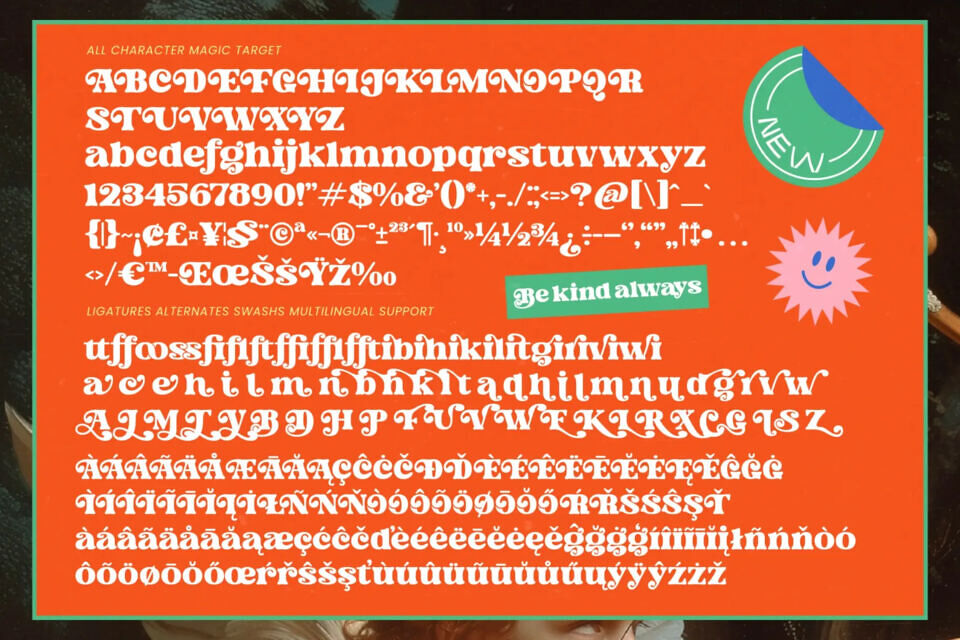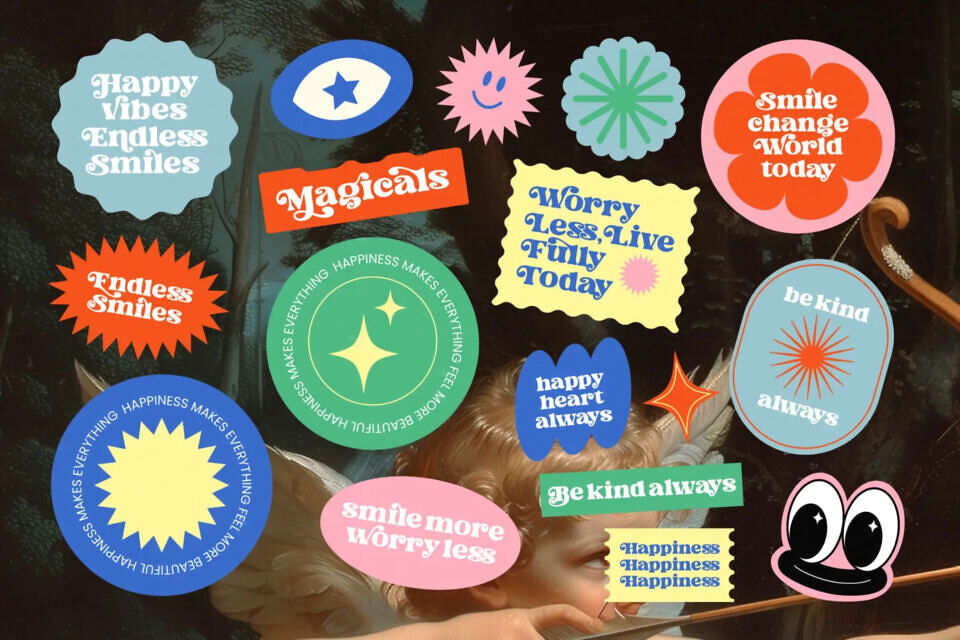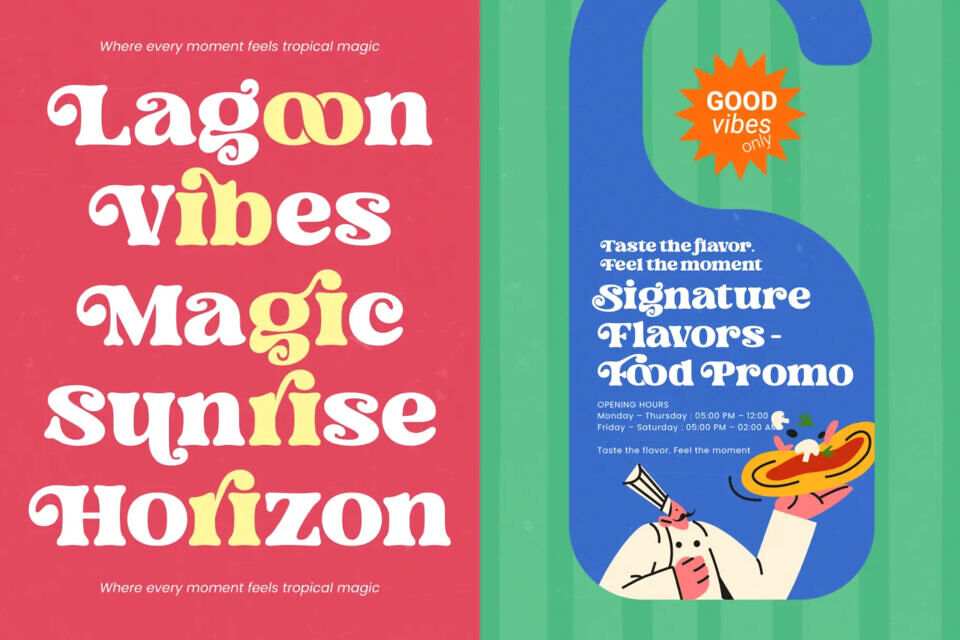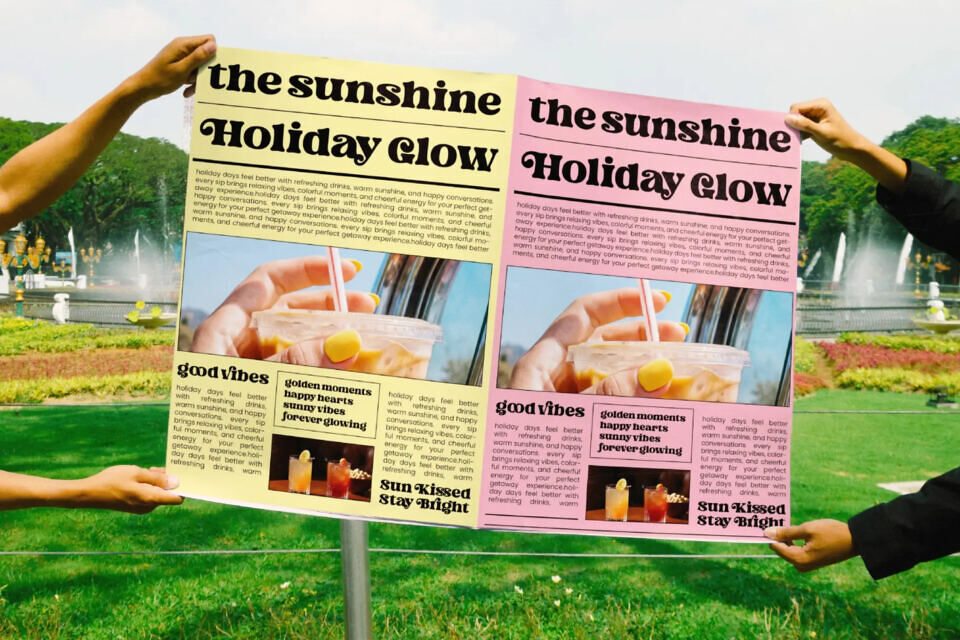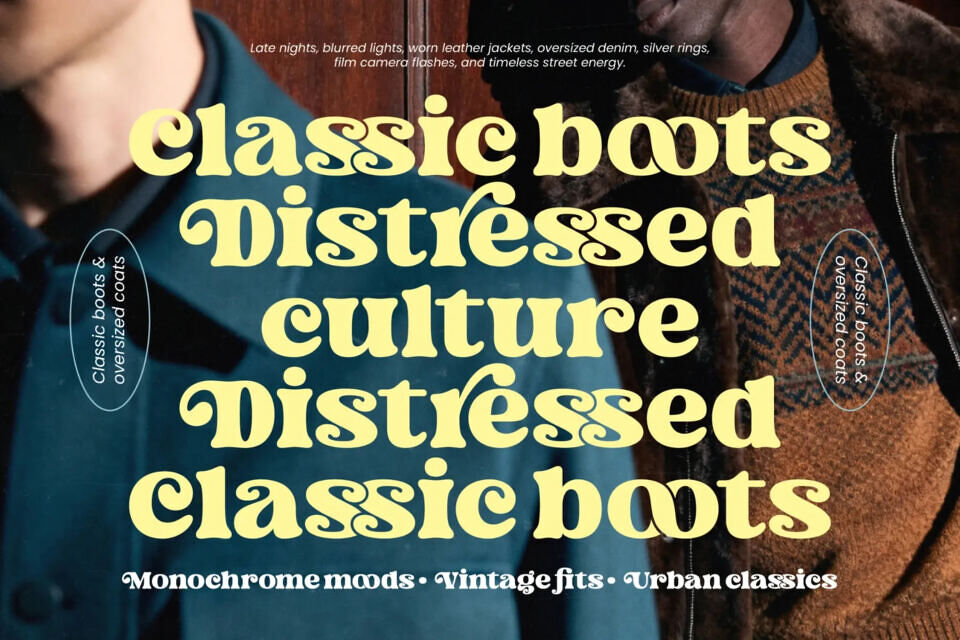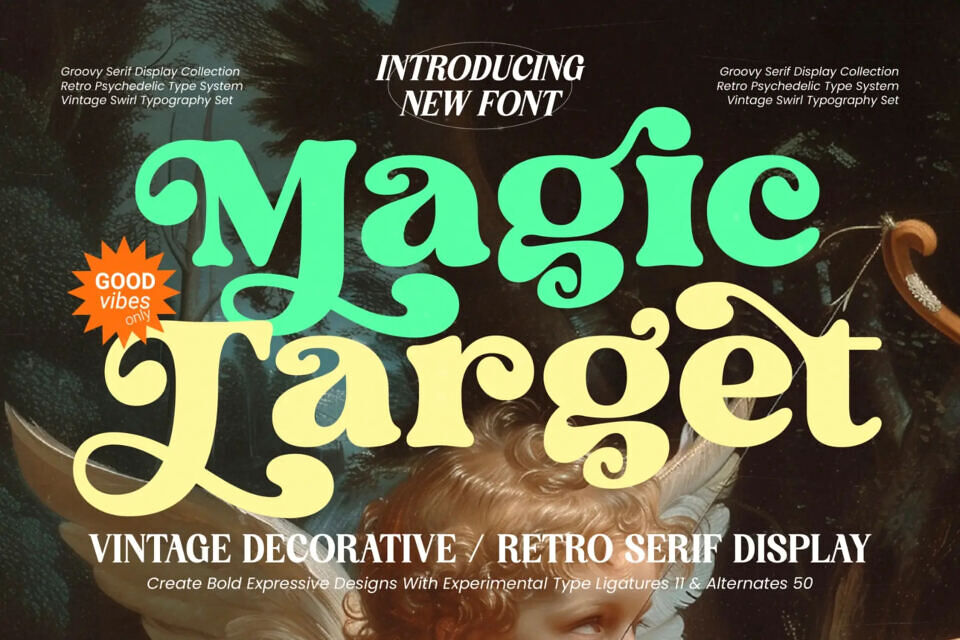
Magic Target Font
Elevate your design with a modern, vintage-inspired typeface. Magic Target combines bold, expressive lines with fluid curves, drawing from psychedelic typography. Its high-contrast strokes and extensive customization options make it perfect for luxury branding, packaging, and editorial design.
With multilingual support, this versatile font ensures your message remains impactful globally, ideal for creating unique visual signatures and striking headlines.